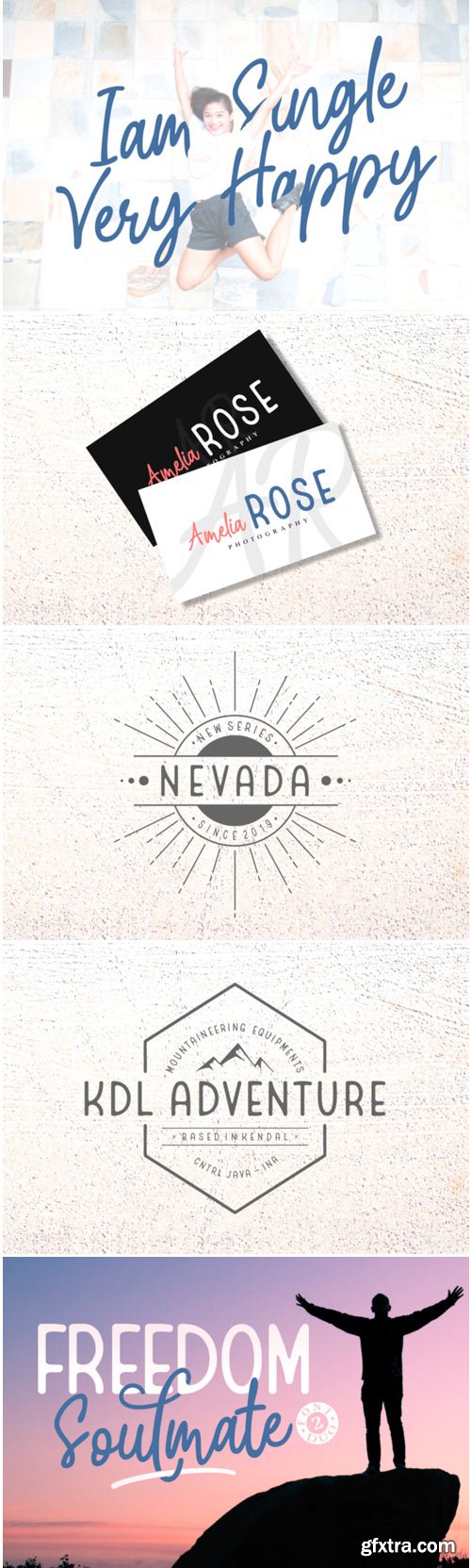
Freedom Soulmate Duo Font
Inspired by the outdoors and with an adventurous feel, Freedom Soulmate is a unique font duo that celebrates freedom and nature. Get inspired by its authentic charm and use it for any design project that needs a touch of nature.